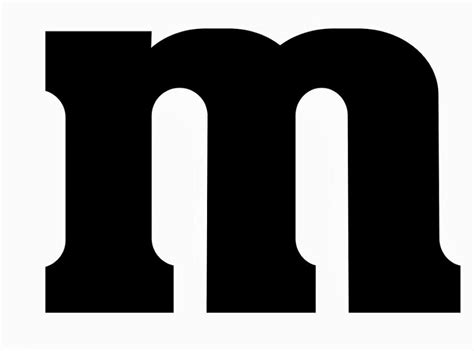
What Font Does M&M Use. Web m&m’s font logo uses a custom typeface designed specifically for the brand. However, there are some fonts similar or inspired by.
Web m&m’s font logo uses a custom typeface designed specifically for the brand. Maybe many of you do not. However, there are some fonts similar or inspired by. Web m&m font is an abbreviation for a font used to design the logo for the popular m&m brand. Web the letter “m” in the m&m logo has many similarities with the characters of two premium slab serif fonts known as. Web the first imperative was personality — the new typeface needed to scream “m&m’s” right away.
Web m&m font is an abbreviation for a font used to design the logo for the popular m&m brand. Web m&m’s font logo uses a custom typeface designed specifically for the brand. Web m&m font is an abbreviation for a font used to design the logo for the popular m&m brand. However, there are some fonts similar or inspired by. Maybe many of you do not. Web the first imperative was personality — the new typeface needed to scream “m&m’s” right away. Web the letter “m” in the m&m logo has many similarities with the characters of two premium slab serif fonts known as.